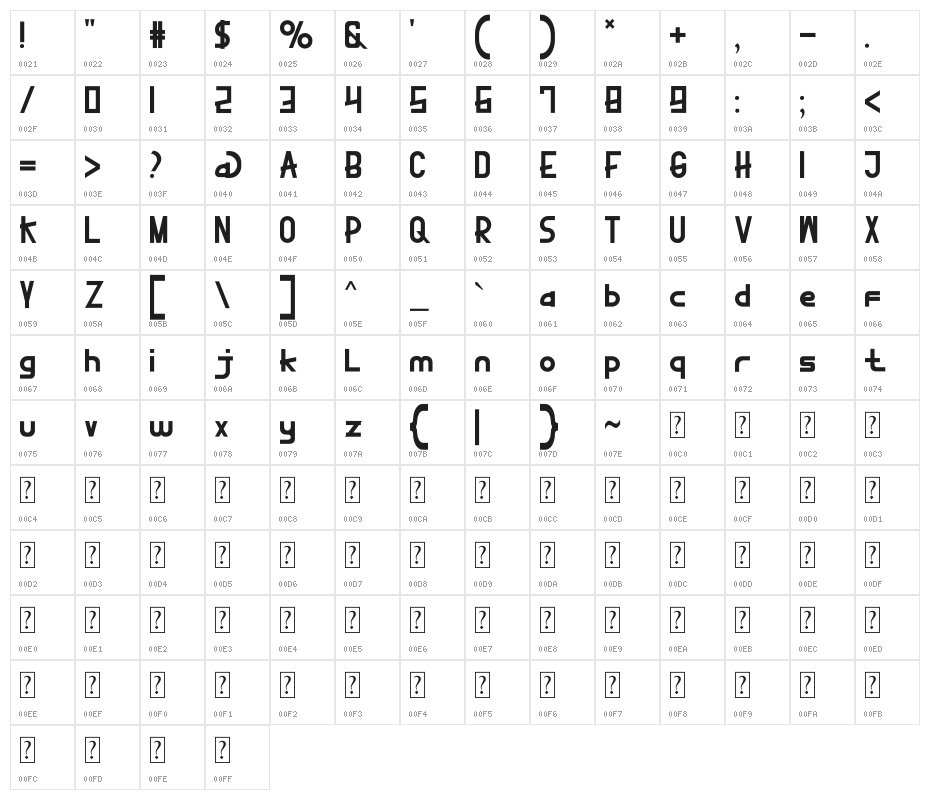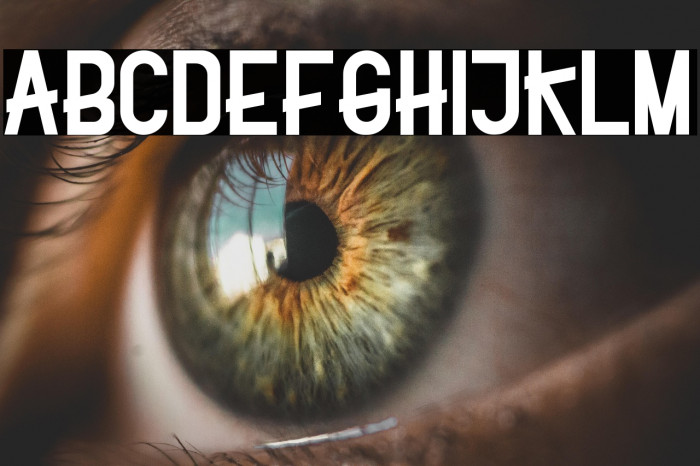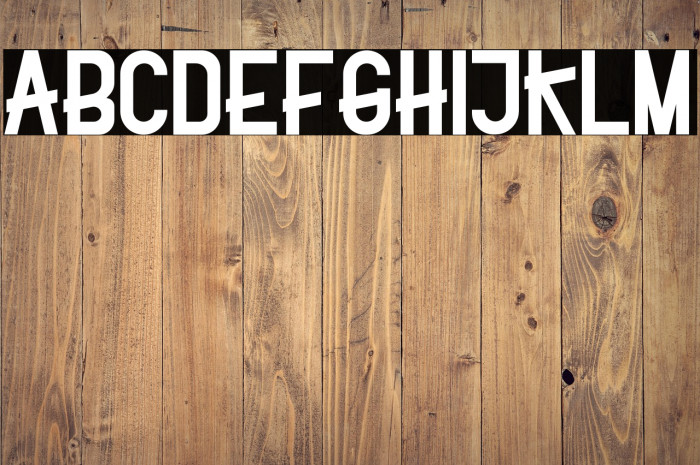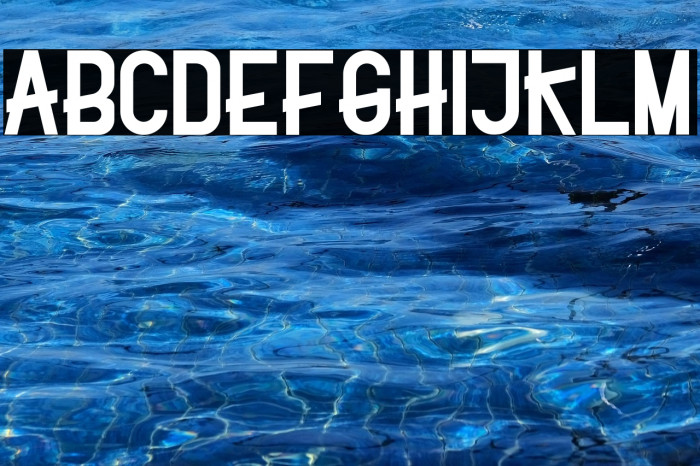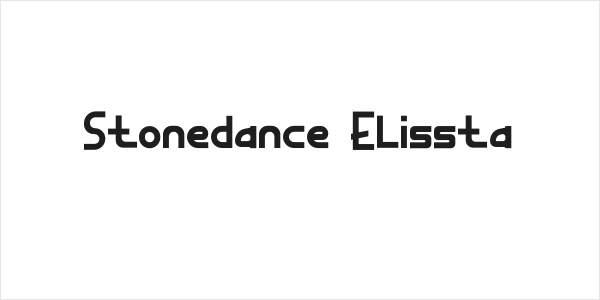
Stonedance Elissta Font
Stonedance Elissta Description
This font features a bold and geometric style with a distinctively modern and edgy appearance. The uppercase letters are characterized by sharp angles and clean lines, creating a sense of structure and strength. The lowercase letters maintain a similar geometric form, offering a cohesive look across the typeface. Numbers and special characters are designed with the same angular and bold aesthetic, ensuring consistency throughout. The overall design is striking and impactful, making it suitable for attention-grabbing headlines or branding projects that require a modern and assertive touch.